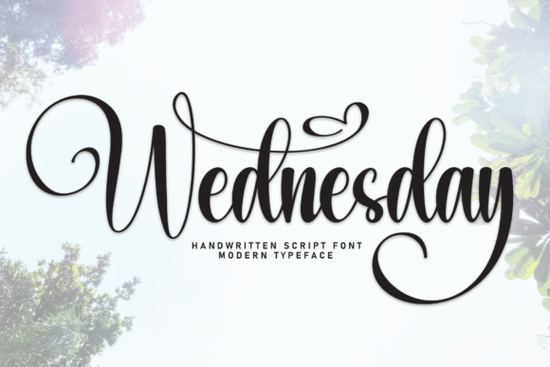
Looking for a script font that feels personal, elegant, and easy to work with? The Wednesday Font is a beautifully crafted handwritten typeface designed for projects that call for a refined, feminine touch. It works especially well on wedding invitations, thank you cards, logos, and greeting cards. If you create designs for clients or sell on print-on-demand platforms, this font deserves a closer look.
Let's break down what makes it useful, where it fits best, and how to get the most out of it in your creative projects.
What Kind of Style Does the Wednesday Font Have?
This is a flowing script typeface with smooth, connected letterforms. It mimics the look of natural handwriting but stays clean enough for professional use. The strokes have a slight bounce to them, which gives the text personality without making it hard to read.
It sits in the same space as other elegant script fonts like Beautica, which also leans into a calligraphic feel, and Amberly Route, known for its romantic, flowing curves. If you already enjoy working with these kinds of typefaces, the Wednesday typeface will feel right at home in your font library.
What Can You Use It For?
This font works well across a range of design projects. Here are some of the most common uses:
- Wedding stationery invitations, RSVP cards, menus, and table numbers
- Greeting cards birthday, holiday, thank you, and Valentine's Day designs
- Logo design especially for boutique brands, florists, photographers, and bakeries
- Social media graphics quote posts, story templates, and promotional banners
- Print-on-demand products mugs, tote bags, t-shirts, and wall art
- Business cards and stationery for a personal, approachable brand feel
Because it has a handwritten quality, it adds warmth to any layout. It pairs especially well with clean sans-serif fonts for body text, which keeps the overall design balanced and easy to read.
How Does It Compare to Other Script Fonts?
If you're browsing Creative Fabrica's script font collection, you'll find plenty of options. The Wednesday typeface holds its own against popular choices like Amibas, which has a bolder, more dramatic stroke, and Masterline, which leans toward a more traditional calligraphy style.
What sets this font apart is its versatility. It's elegant enough for formal invitations but relaxed enough for casual branding. You can use it on a wedding suite and then flip over to a coffee shop logo without it feeling out of place.
Is It Easy to Work With?
Yes. Like most well-made script fonts, it includes standard character sets and works smoothly in popular design software like Adobe Illustrator, Photoshop, Canva, and Cricut Design Space. The letter connections are clean, so you won't spend extra time manually adjusting spacing between characters.
It also includes alternates and ligatures in many versions, which let you swap out specific letter combinations for a more natural, hand-lettered look. This is a small detail that makes a big difference in the final result.
Tips for Pairing This Font with Other Typefaces
Good font pairing takes a project from average to polished. Here are a few quick tips when working with this script typeface:
- Pair it with a simple sans-serif like Montserrat or Lato for body text
- Avoid using it for long paragraphs script fonts are best for headings and short phrases
- Use generous line spacing when setting it at larger sizes
- Test it at different sizes to make sure small text stays legible
- Stick to one script font per design to keep things clean
Who Is This Font Best For?
This typeface is a solid pick for:
- Wedding stationery designers who need a reliable, elegant script
- Crafters and hobbyists making cards, signs, or home décor
- Print-on-demand sellers creating products for an audience that loves handwritten styles
- Small business owners building a brand with a soft, approachable identity
- Social media managers looking for a personal touch in their graphics
If your work involves any kind of feminine, romantic, or handcrafted aesthetic, this font will likely become one of your go-to choices.